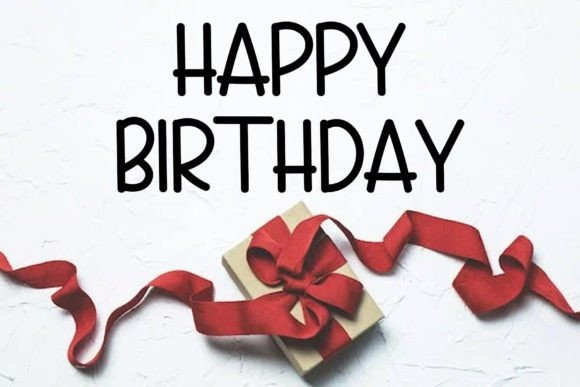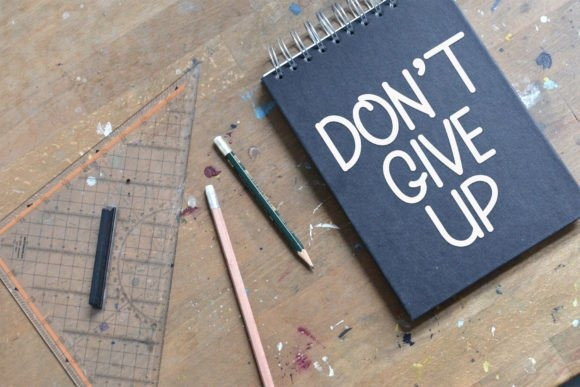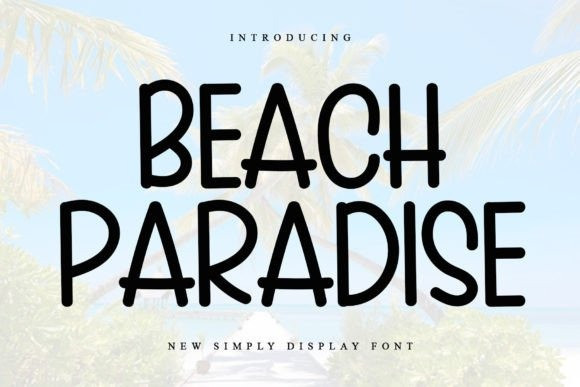
Beach Paradise Typeface
Beach Paradise Typeface is a sweet and friendly display font. Its natural and unique style makes it incredibly fitting to a large pool of designs. The only limit is your imagination!